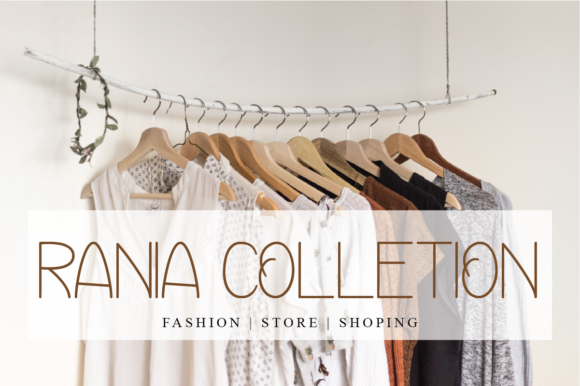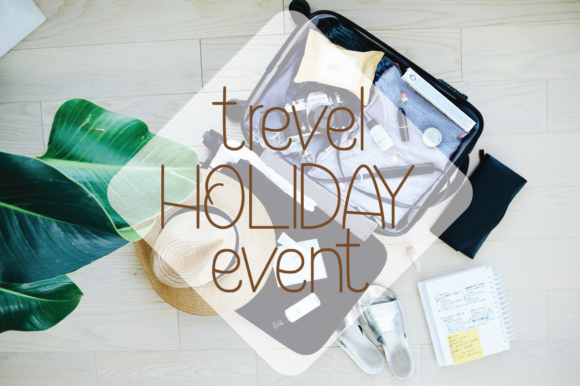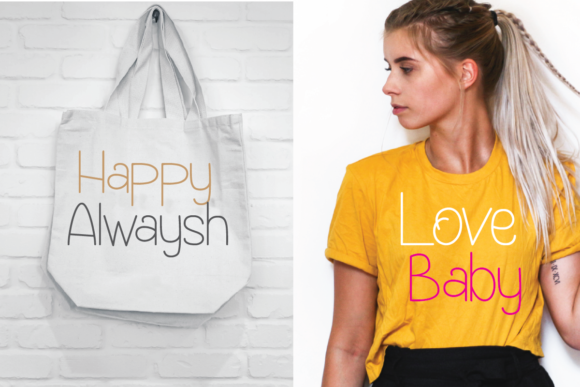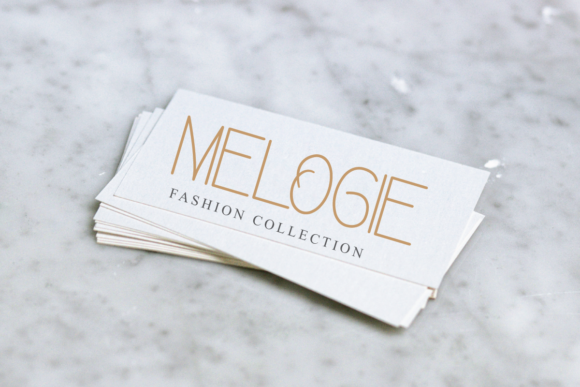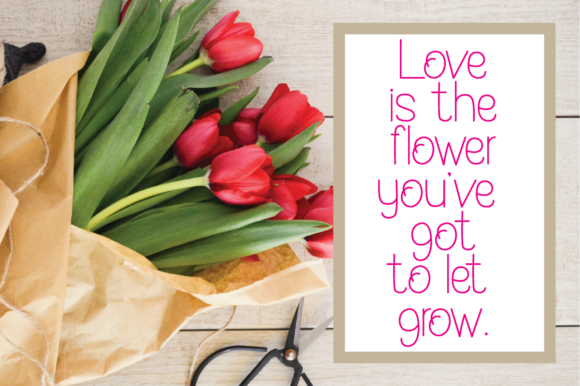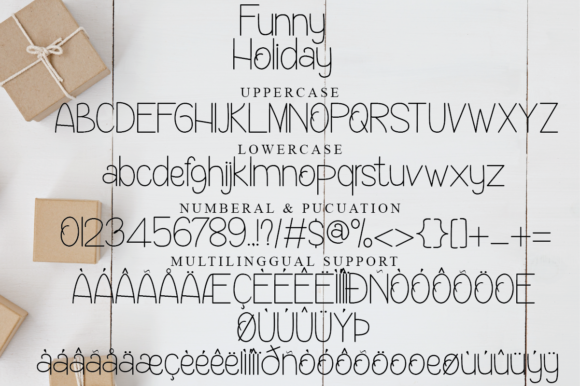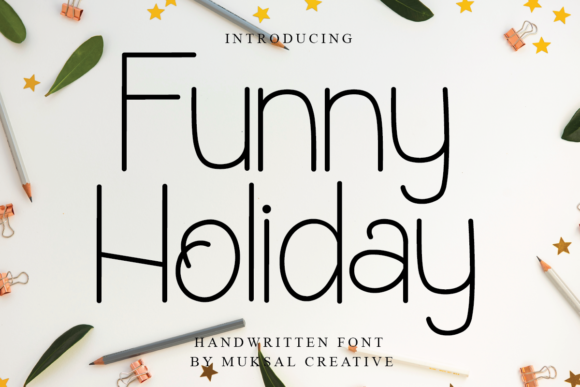
Introducing Funny Holiday Font: The Perfect Addition to Your Creative Projects
Are you tired of using the same old fonts for your holiday-themed projects? Look no further! Funny Holiday Font is a thin and clean sans serif font that is sure to add a touch of elegance and whimsy to your designs. With its versatility and wide range of applications, this font is perfect for designers, crafters, and anyone looking to add some personality to their creative projects.
What Makes Funny Holiday Font So Special?
Funny Holiday Font is a unique and modern sans serif font that is characterized by its clean lines, simple shapes, and thin strokes. Its minimalist design makes it incredibly versatile, allowing it to be paired with a wide range of other fonts and design elements. Whether you’re working on a holiday card, a festive flyer, or a fun and playful craft project, Funny Holiday Font is sure to make your design stand out.
Endless Possibilities for Your Creative Projects
One of the best things about Funny Holiday Font is its incredible flexibility. It can be used for a wide range of projects, from:
- Festive flyers and brochures
- Fun and playful craft projects, such as DIY decorations and gift tags
- Web designs and blog posts
Whether you’re a professional designer or a crafty DIY enthusiast, Funny Holiday Font is sure to become a go-to font in your collection.
Why Choose Funny Holiday Font?
So why choose Funny Holiday Font over other fonts? Here are just a few reasons:
- Unique and eye-catching design: Funny Holiday Font has a distinctive and modern design that is sure to grab attention.
- Highly versatile: This font can be paired with a wide range of other fonts and design elements, making it perfect for a variety of projects.
- Easy to read: Despite its thin strokes, Funny Holiday Font is incredibly easy to read, even at small sizes.
- Perfect for digital and print projects: Whether you’re working on a digital design or a print project, Funny Holiday Font is optimized for both.
Tips for Using Funny Holiday Font
Here are a few tips for using Funny Holiday Font in your projects:
- Pair it with bold fonts: Funny Holiday Font looks great when paired with bold, chunky fonts. Try pairing it with a bold sans serif font for a fun and playful look.
- Use it for headings and titles: Funny Holiday Font is perfect for headings and titles, where its thin strokes and clean lines can really shine.
- Experiment with different colors: Funny Holiday Font looks great in a variety of colors, from bright and bold to soft and pastel.
| Font Name | Funny Holiday Font |
| Author | Muksal Creative |
Whether you’re working on a holiday project or just looking for a new font to add to your collection, Funny Holiday Font is the perfect choice. Its thin and clean sans serif design makes it perfect for a wide range of projects, from festive and fun to elegant and sophisticated. So go ahead, get creative, and see what amazing designs you can come up with using Funny Holiday Font!